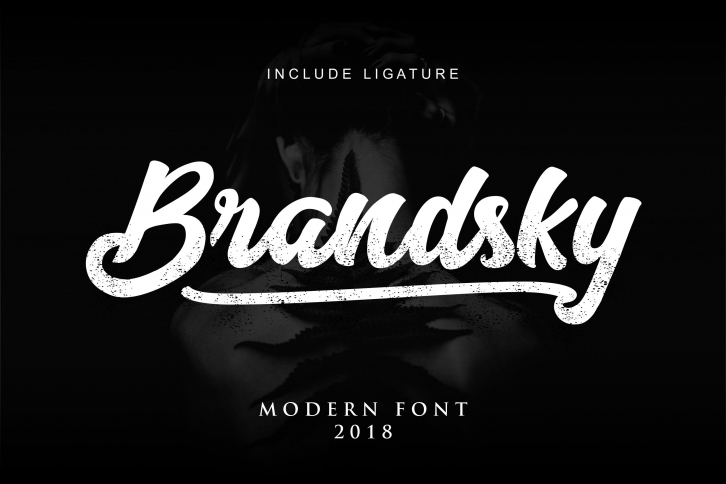
Brandsky Logo is a beautiful font that was designed by Banyumili Studio. It's a great choice for designers and creatives who need such a font. It was released on October 13, 2018 and the file size is 4.90 MB. Brandsky Logo may give a more youthful, expressive and casual look to your project. It is a very beautiful, refined, elegant, and high-quality font.